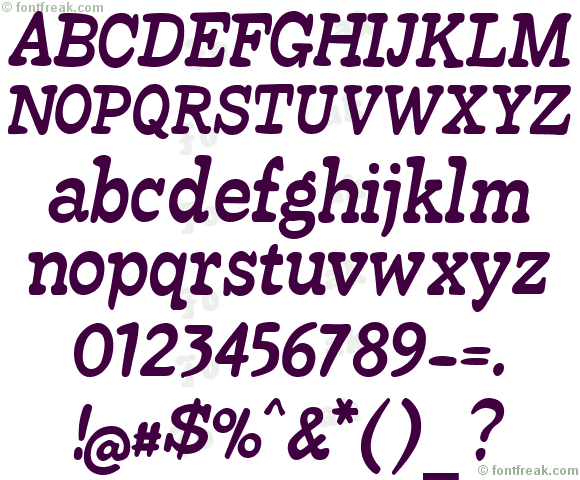
Beta54
About Beta54
The Beta54 font, designed by Peter Wiegel, is a distinctive display typeface that captures attention with its unique character and charm. This font falls into the category of decorative fonts, making it a versatile option for various creative projects. Its visual characteristics include a bold stroke weight, which provides a strong presence, and a slightly playful design that invites a closer look. The contrast is moderate, ensuring readability while still allowing the ornamental aspects to shine. The spacing between letters is well-balanced, enhancing legibility and adding to the overall aesthetic appeal.
Beta54 is ideal for a variety of use cases. It shines in wedding invitations, where its decorative flair adds a touch of elegance. It's also a great choice for movie posters, helping to convey a sense of drama and excitement. Additionally, this font works well for restaurant menus, where the bold and inviting style can attract diners' attention. Graphic designers will find it particularly useful for branding projects, as its unique design can help businesses stand out in a crowded market. Small business owners and content creators will appreciate its ability to elevate any printed or digital material.